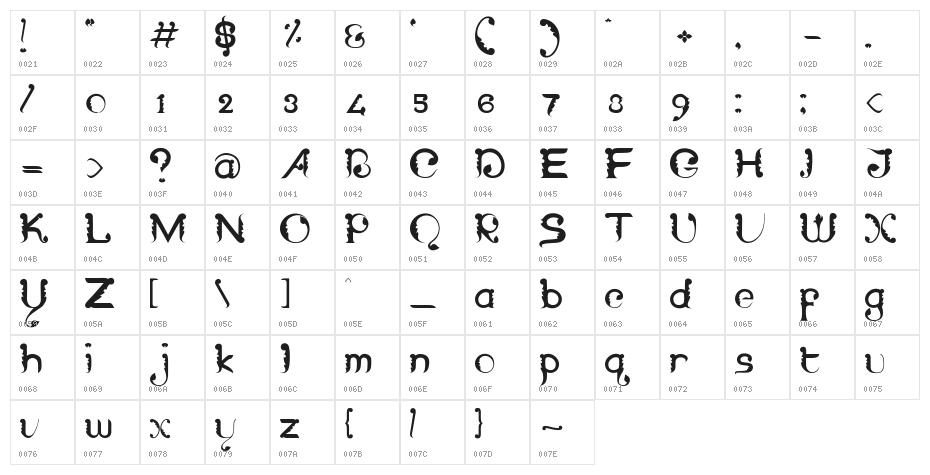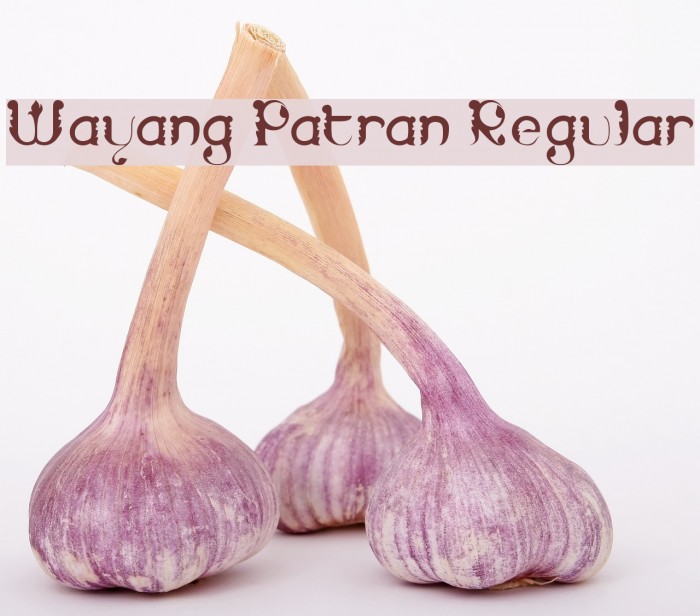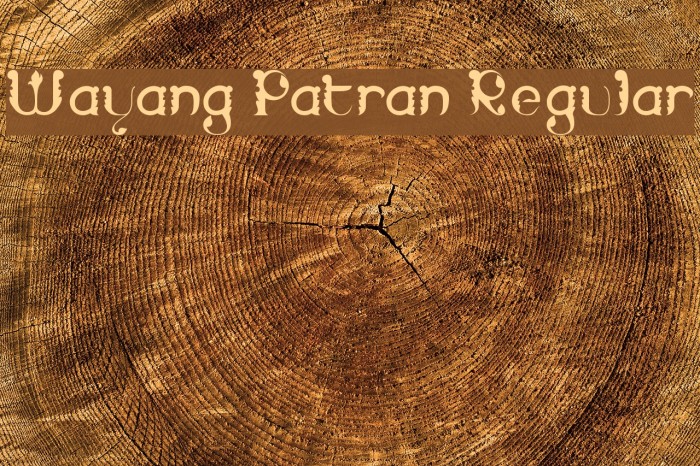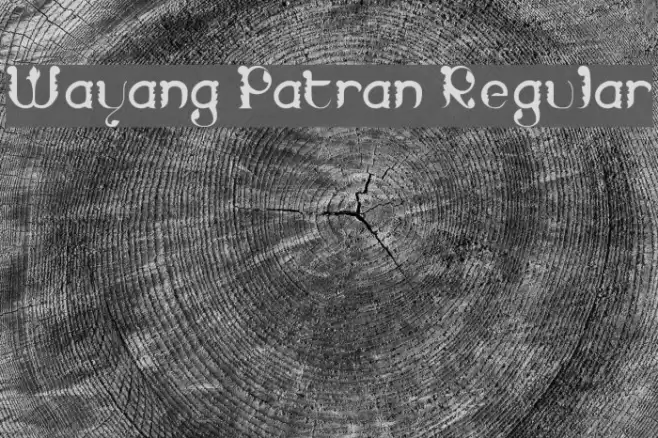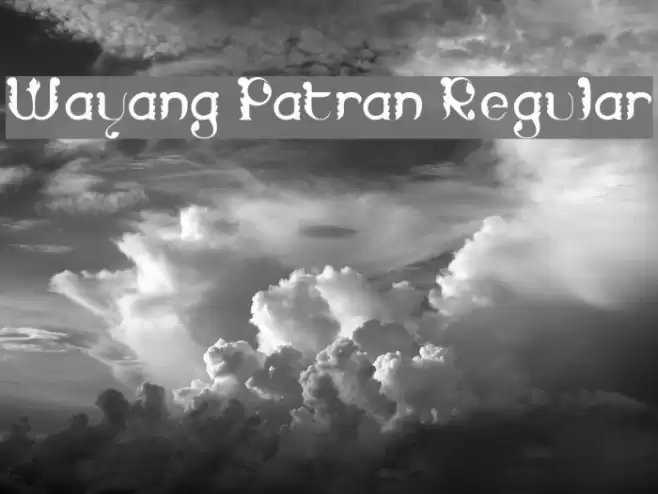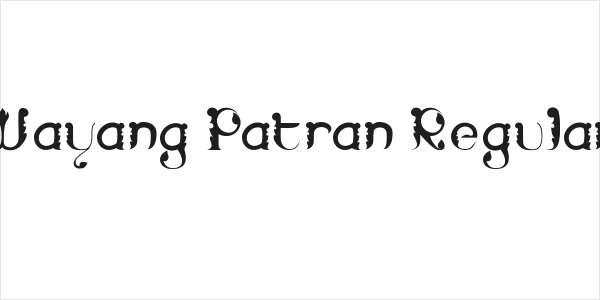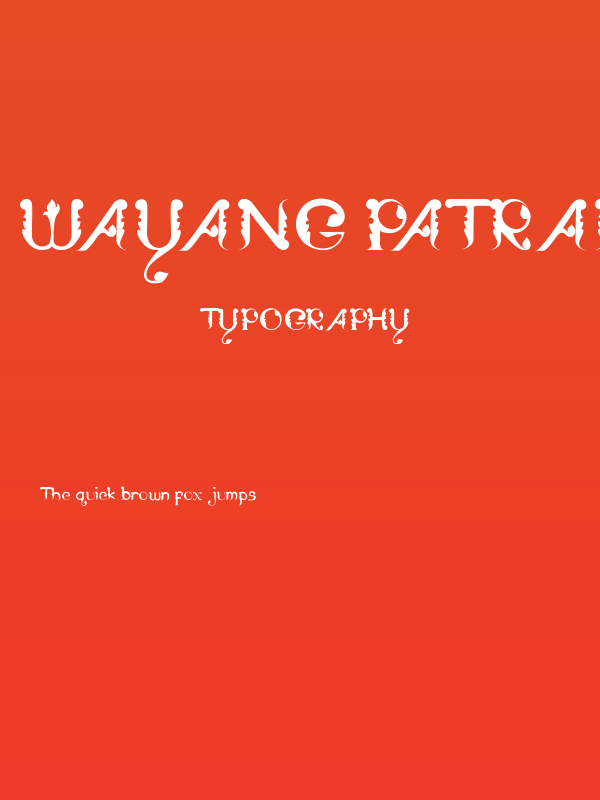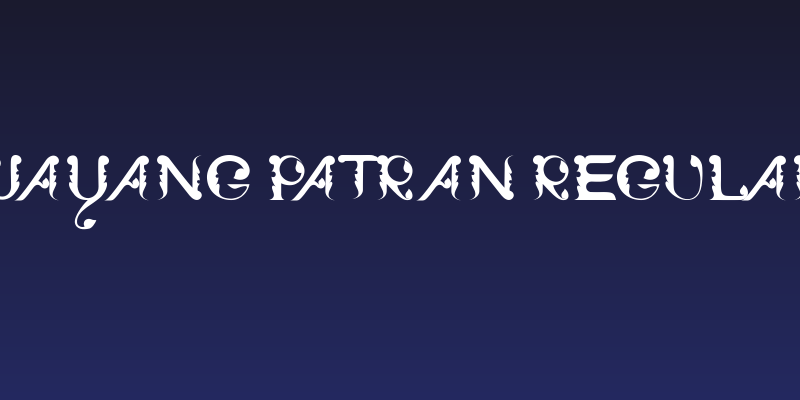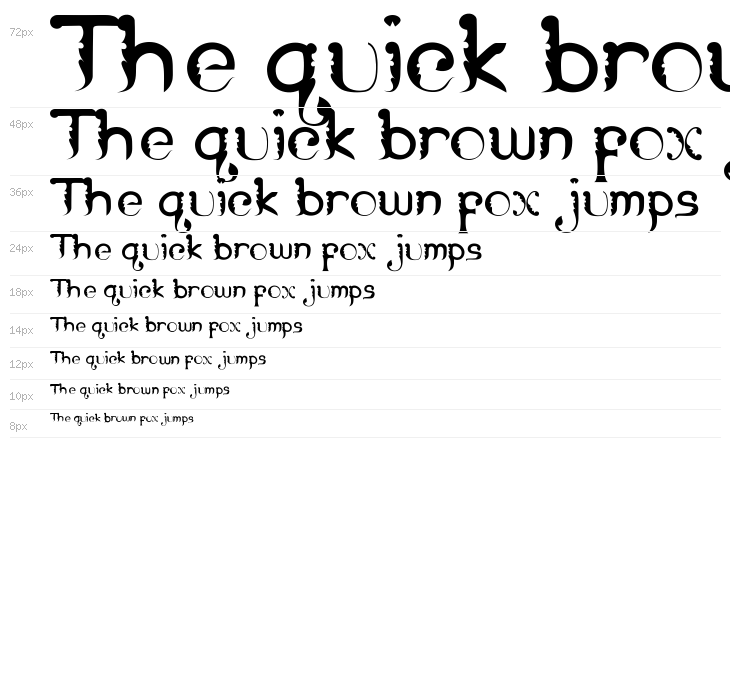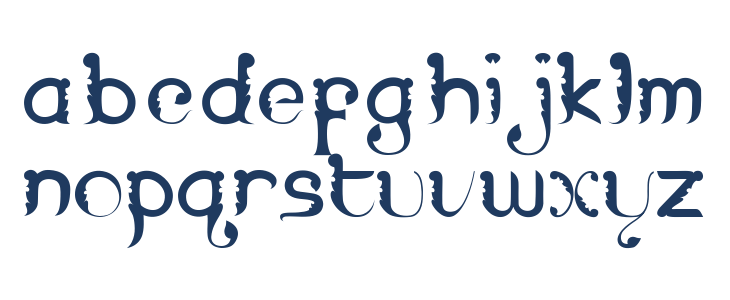
Wayang Patran Regular Font
Wayang Patran Regular Description
This font features a unique and artistic design, characterized by its intricate and decorative elements that resemble traditional motifs. Each character is adorned with elaborate curves and flourishes, giving it a distinct and ornamental appearance. The font maintains a consistent style across uppercase, lowercase, numbers, and special characters, ensuring a cohesive look. Its bold strokes and high contrast between thick and thin lines enhance its visual impact, making it suitable for eye-catching designs. The overall style is both modern and vintage, blending contemporary aesthetics with classic influences.